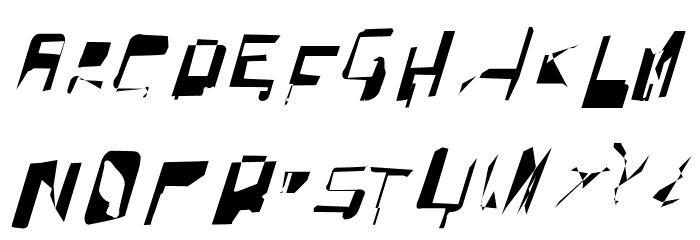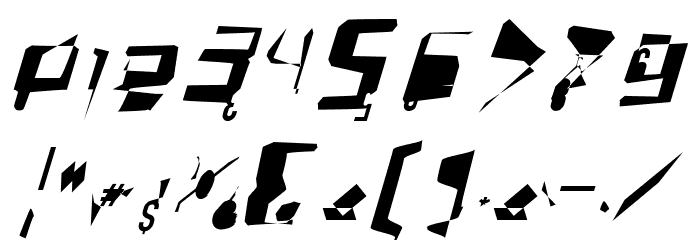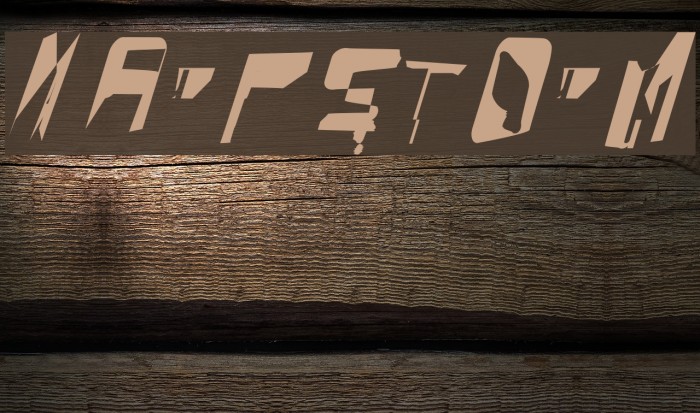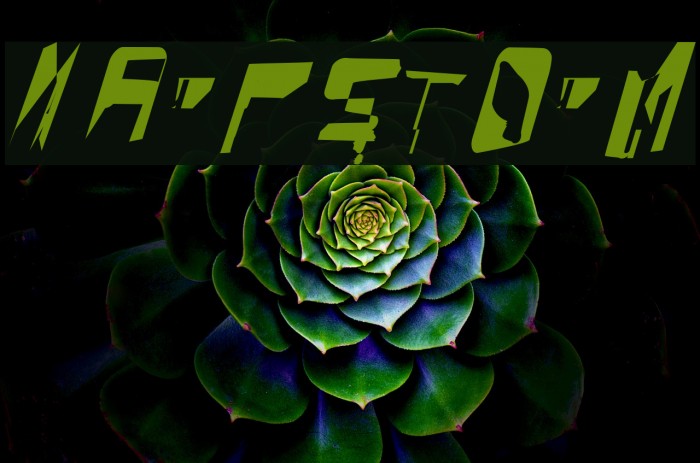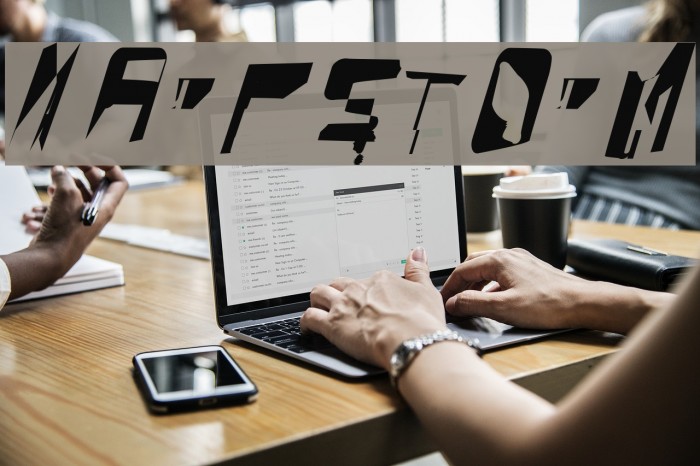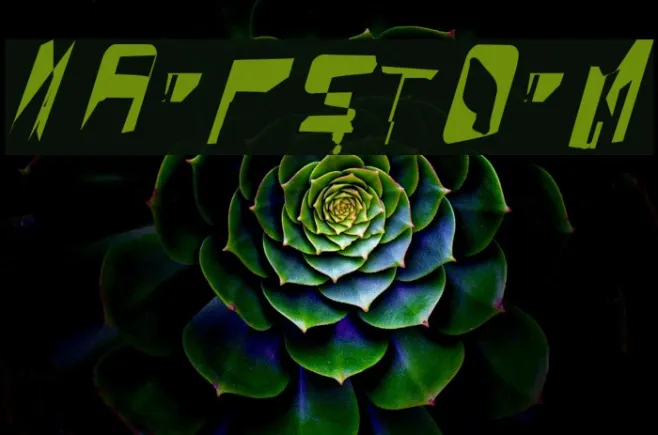
WarpStorm Font
This font features a highly stylized, fragmented design with sharp angles and irregular shapes, creating a chaotic and dynamic appearance. The characters are bold and heavily distorted, giving them a futuristic and edgy feel. The uppercase and lowercase letters share a similar aesthetic, with each character appearing as though it has been shattered or warped. The numbers and special characters continue this theme, maintaining the same level of distortion and angularity. This font is visually striking and commands attention, making it suitable for projects that require a bold and unconventional look.
A bold, fragmented font with a futuristic and chaotic design.
- Proposed Projects: Ideal for sci-fi themed posters, album covers, video game graphics, and edgy branding projects.
- Overall Style: Futuristic, Edgy